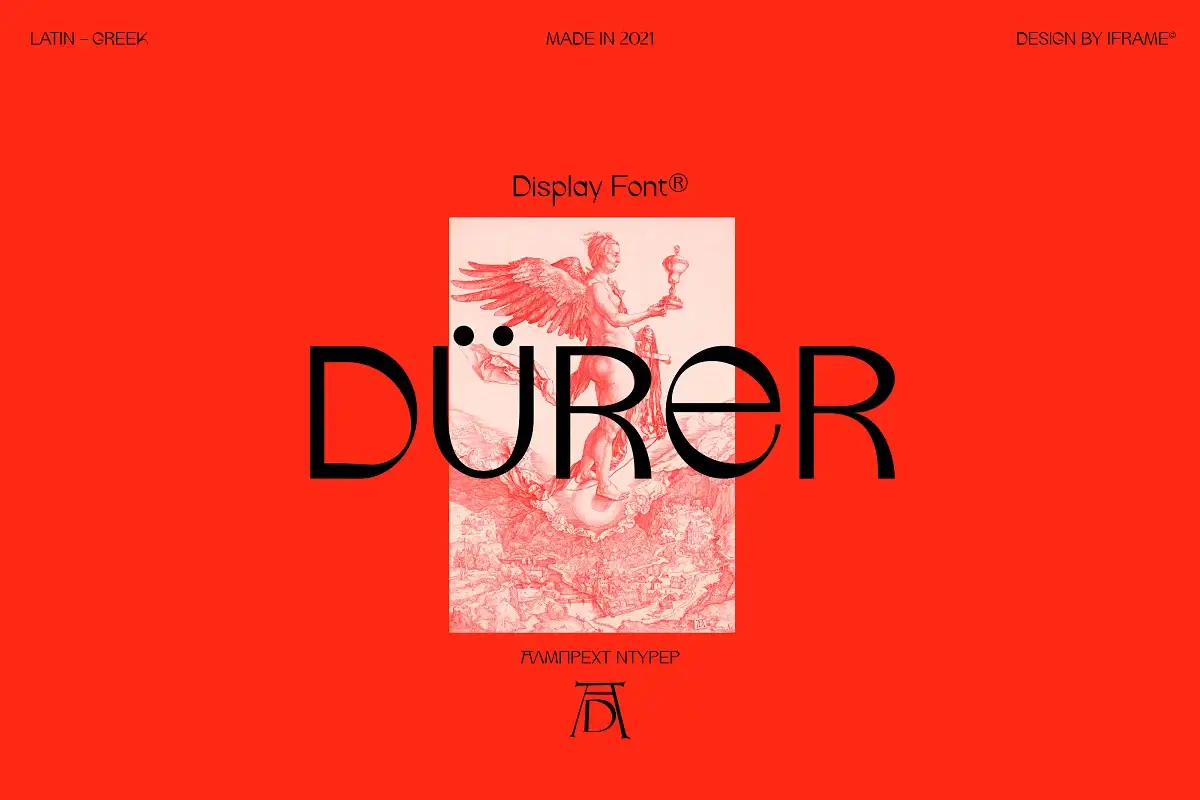
Unleash the modern charm of IF Durer, a display font that seamlessly blends soft curves with refined details to evoke a timeless sense of elegance. This IF Durer Free Display Font is not just a typographic masterpiece; it’s a tribute to the artistic legacy of Albrecht Dürer, the eminent German painter, printmaker, and theorist of the German Renaissance.
🖌️ Inspired by Albrecht Dürer’s Legacy
Born in Nuremberg on 21st May 1471, Albrecht Dürer’s influence reverberates through the ages. IF Durer draws inspiration from Dürer’s exquisite woodcut prints, capturing the essence of his artistic prowess that gained widespread acclaim across Europe in his twenties.
🌐 Versatile Typography
IF Durer boasts a meticulously crafted design, offering versatility with:
- 1 Weight: Tailor your design with precision.
- 551 Glyphs: A rich repertoire for expressive communication.
- Upper/Lower Case, Numbers, Punctuation: Comprehensive language expression.
- Language Support: Latin and Greek characters for global appeal.
IF Durer Free Display Font